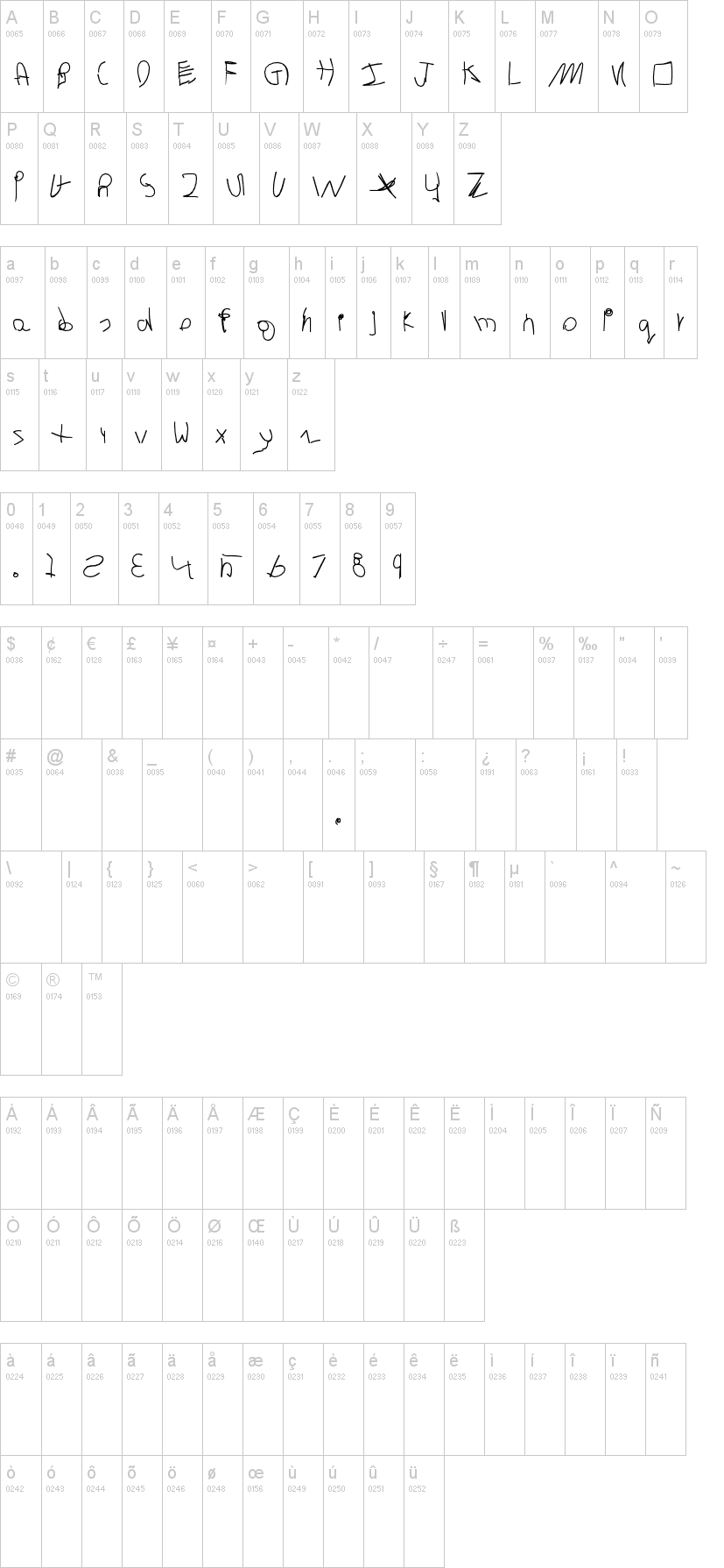
Шрифт Evan
The typeface Evan stemmed from an investigation into common issues that arise when children are developing their handwriting. Each letter sample chosen to inform Evan contained at least one element in its formation that is generally considered to be problematic for writing.
Evan is based on lettering by children aged 5 8.
Designed by Nell May